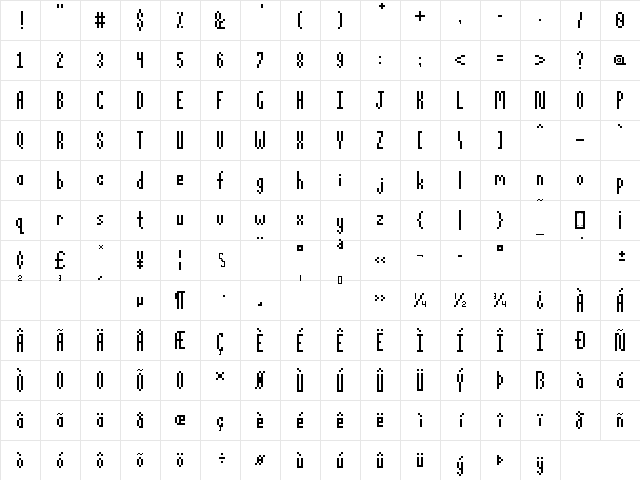
Pixelatus Regular
| Designer | CaffeineMeme |
Design Context for Pixelatus Typeface
Pixelatus is rooted in pixel-grid construction, making it a natural fit for game UI, retro computing aesthetics, and digital nostalgia projects.
A natural choice for retro game titles, chiptune music branding, 8-bit UI, and digital nostalgia projects.